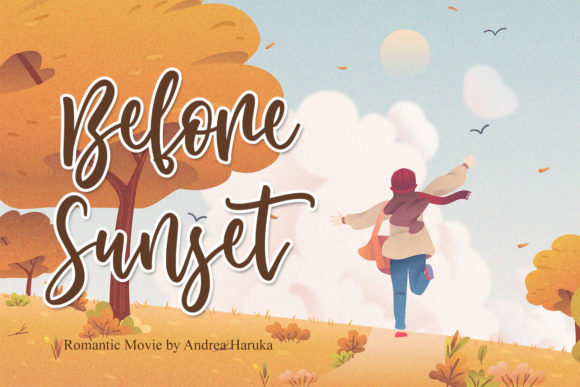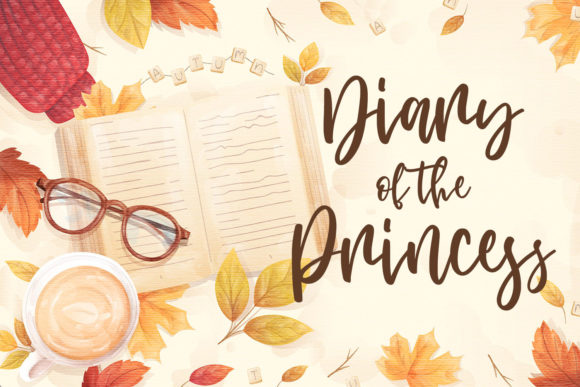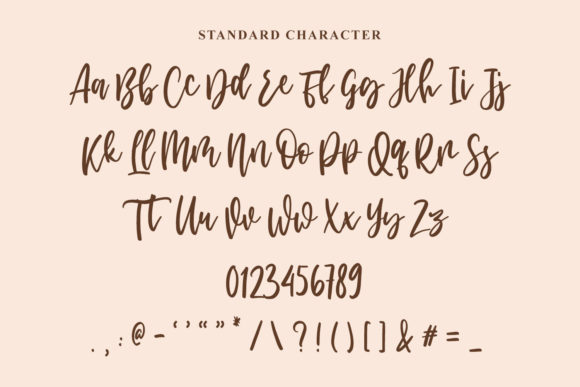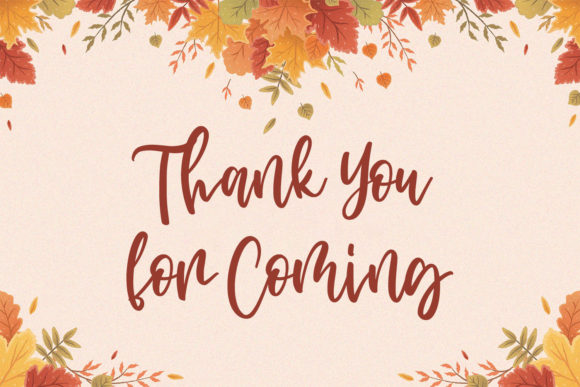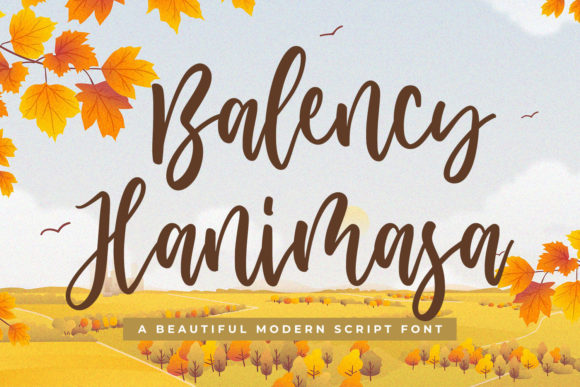
Discover the Charm of Balency Hanimasa Font: A Sweet and Quirky Script Font
Are you on the hunt for a font that exudes joy, playfulness, and a touch of quirkiness? Look no further than Balency Hanimasa, a delightful script font that’s sure to capture your heart. With its sweet and charming style, this font is perfect for designers and crafters looking to add a personal touch to their creative projects.
What Makes Balency Hanimasa Font So Special?
Balency Hanimasa is a one-of-a-kind script font that’s designed to bring a smile to your face. Its unique and whimsical style makes it stand out from more traditional fonts, giving your designs a fresh and modern feel. Whether you’re working on a wedding invitation, social media post, or stationery art, this font is sure to add a touch of personality and flair.
Endless Creative Possibilities with Balency Hanimasa
One of the best things about Balency Hanimasa is its versatility. This font can be used for a wide range of creative projects, including:
- Wedding Invitations: Create beautiful and unique wedding invitations that set the tone for a joyful and celebratory occasion.
- Stationery Art: Add a personal touch to your stationery, journals, and planners with this charming font.
- Social Media Posts: Make your social media posts stand out with Balency Hanimasa’s playful and eye-catching style.
- Branding and Packaging: Use this font to create custom branding and packaging that reflects your brand’s personality and style.
Why Designers and Crafters Love Balency Hanimasa
So, what makes Balency Hanimasa a favorite among designers and crafters? Here are just a few reasons:
- Easy to Read: Despite its playful style, Balency Hanimasa is easy to read and understand, making it perfect for body text and headlines.
- Customizable: This font comes with a range of customization options, allowing you to tailor it to your specific design needs.
- Unique and Memorable: Balency Hanimasa’s quirky style ensures that your designs will stand out and be remembered.
Tips for Using Balency Hanimasa in Your Designs
To get the most out of Balency Hanimasa, here are a few tips to keep in mind:
- Pair it with Neutrals: Balance out Balency Hanimasa’s playful style by pairing it with neutral colors and fonts.
- Experiment with Sizes: Play around with different font sizes to create visual interest and hierarchy in your designs.
- Add Decorations: Take advantage of Balency Hanimasa’s customizable features, such as swashes and flourishes, to add extra flair to your designs.
Balency Hanimasa is a sweet and quirky script font that’s sure to capture your heart. With its unique style, versatility, and ease of use, this font is perfect for designers and crafters looking to add a personal touch to their creative projects. Whether you’re working on a wedding invitation, social media post, or stationery art, Balency Hanimasa is the perfect choice. So why wait? Fall in love with this charming font and start creating gorgeous designs today!